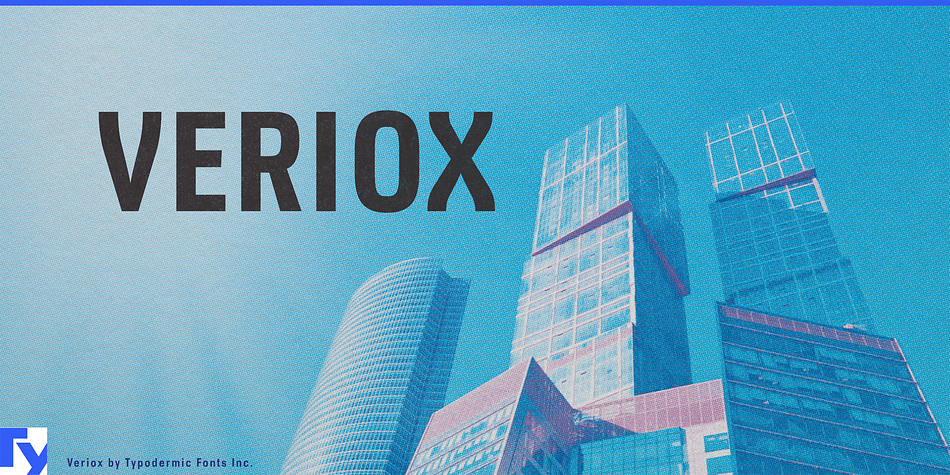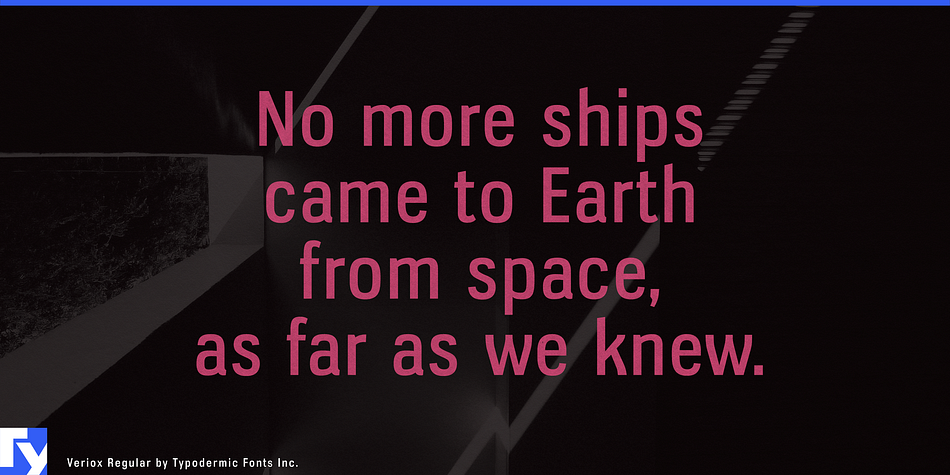
Veriox
Veriox is a sans serif font family. This typeface has six styles and was published by Typodermic Fonts Inc.
Introducing Veriox, the quintessential embodiment of modern scientific innovation in typography. Veriox’s square letterforms, derived from traditional analytical shapes, exude an industrial sophistication that is both alluring and commanding.
Our designers have seamlessly integrated high-tech design effects into Veriox, creating an innovative and unique aesthetic that is sure to make your message stand out from the crowd. The result is a typeface that exudes a sense of precision, confidence, and grace.
Veriox comes in three distinct weights and italics, providing unparalleled flexibility for your design needs. Whether you’re looking to create a sleek and professional corporate identity, a dauntless and striking marketing campaign, or a sophisticated editorial layout, Veriox has you covered.
Don’t settle for mundane, generic typefaces. Choose Veriox and elevate your message to new heights with its distinct, sophisticated style.